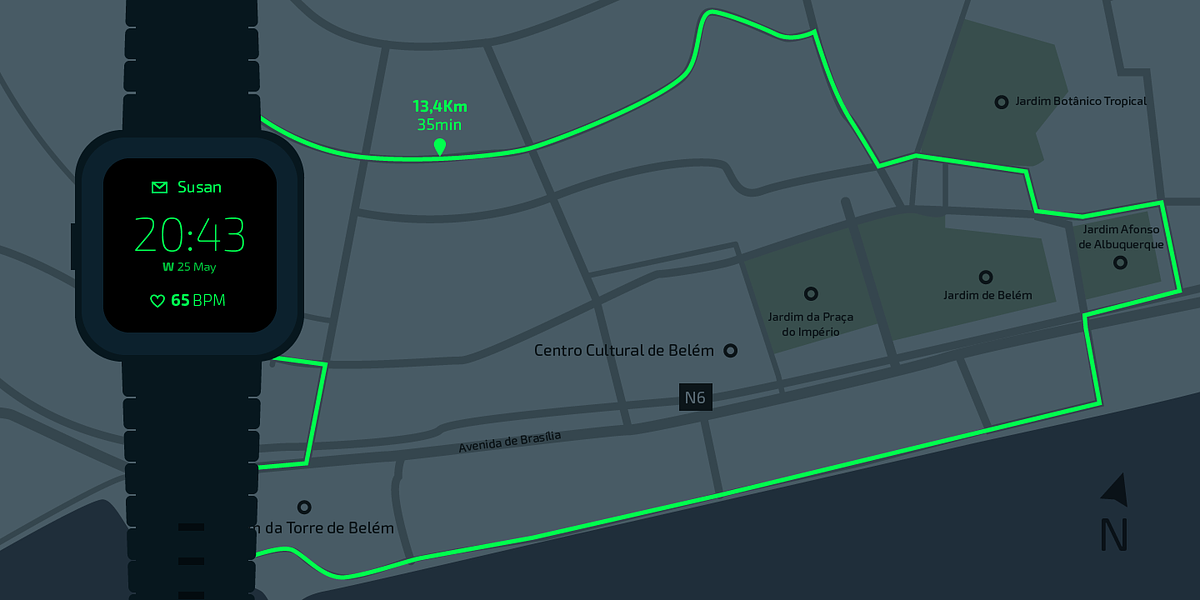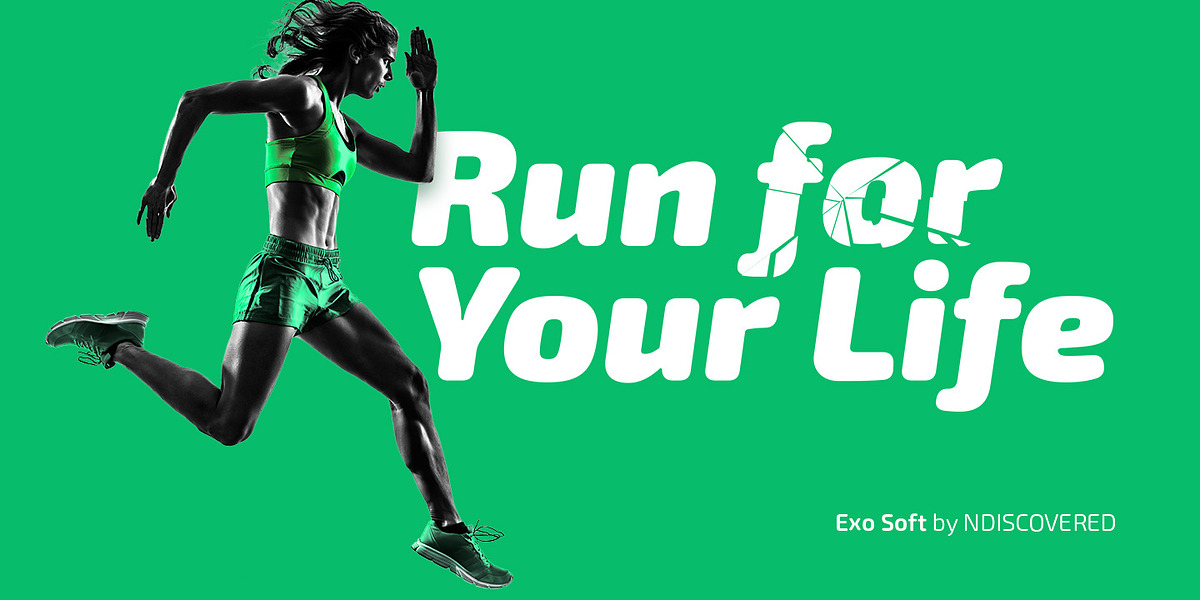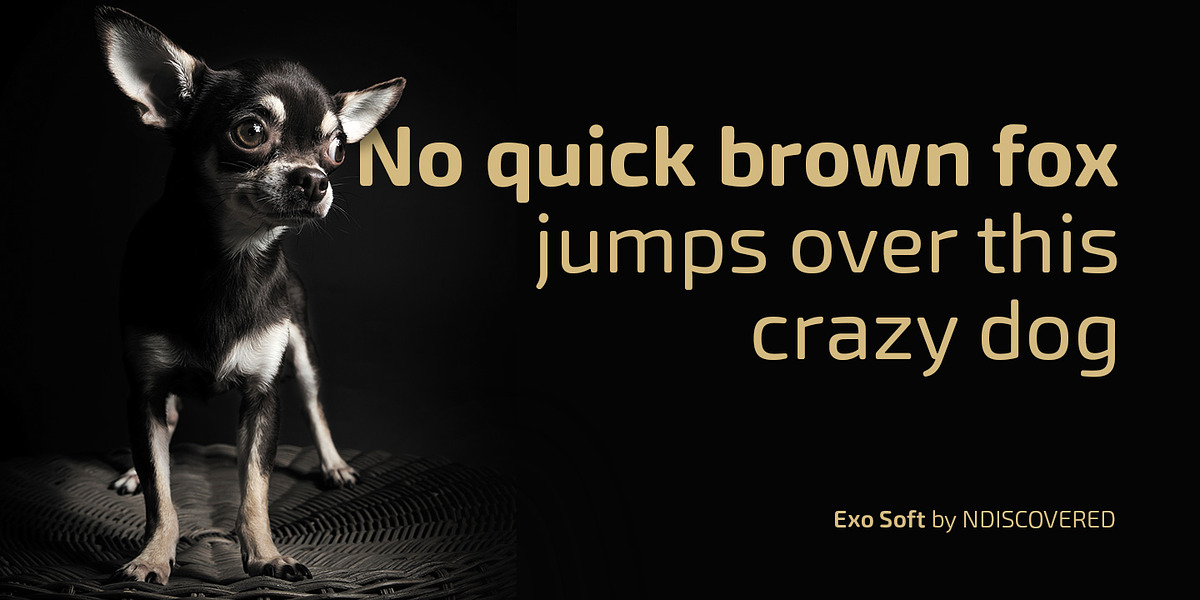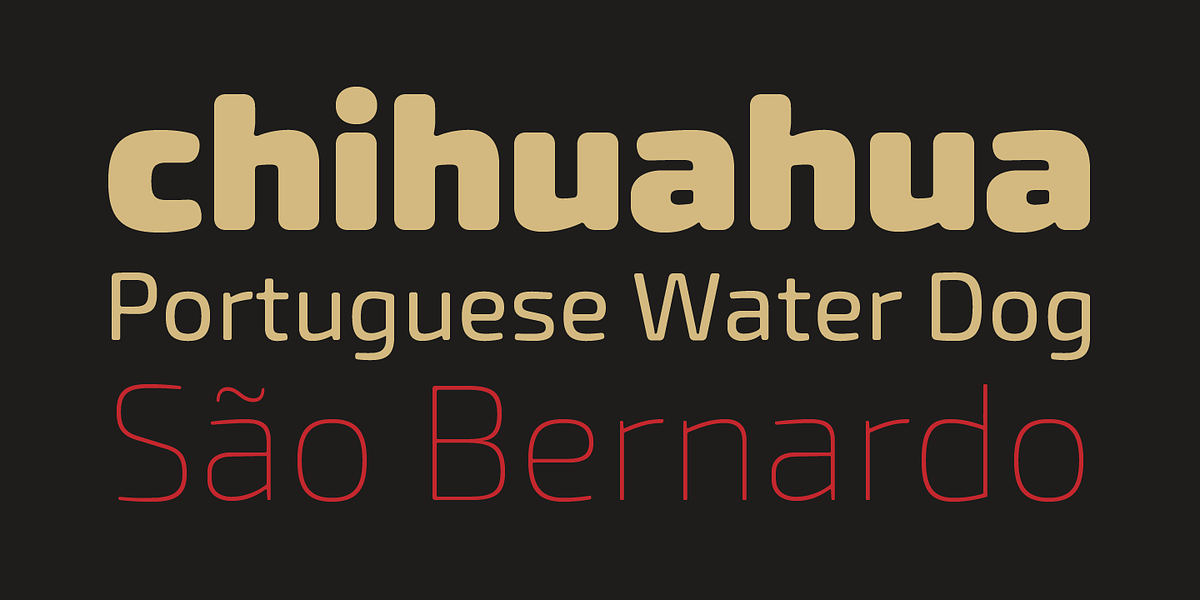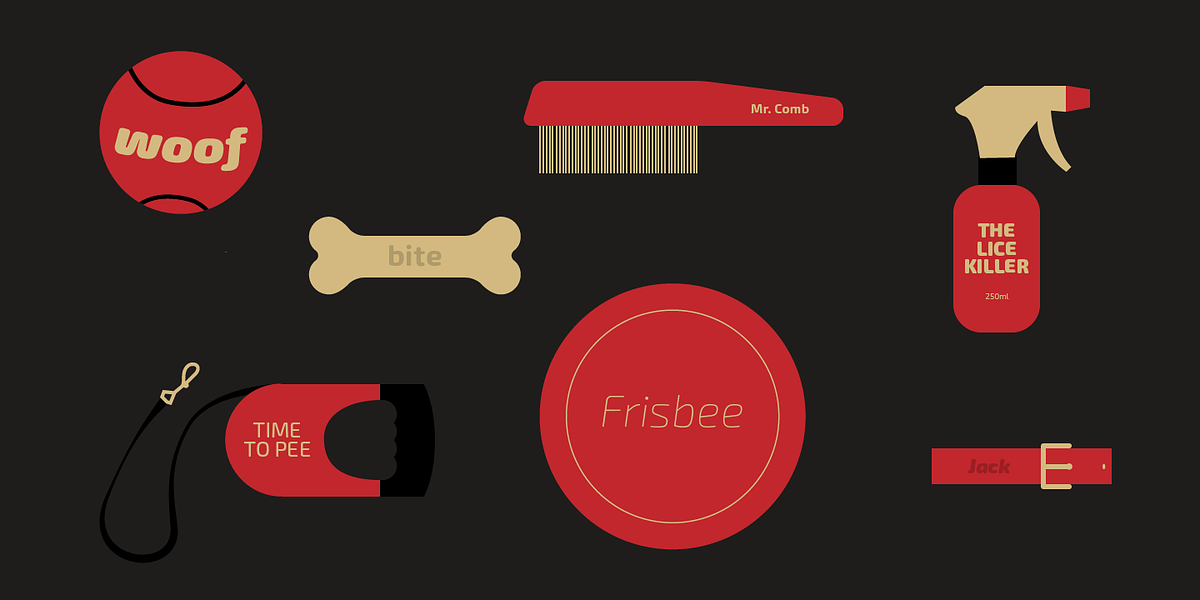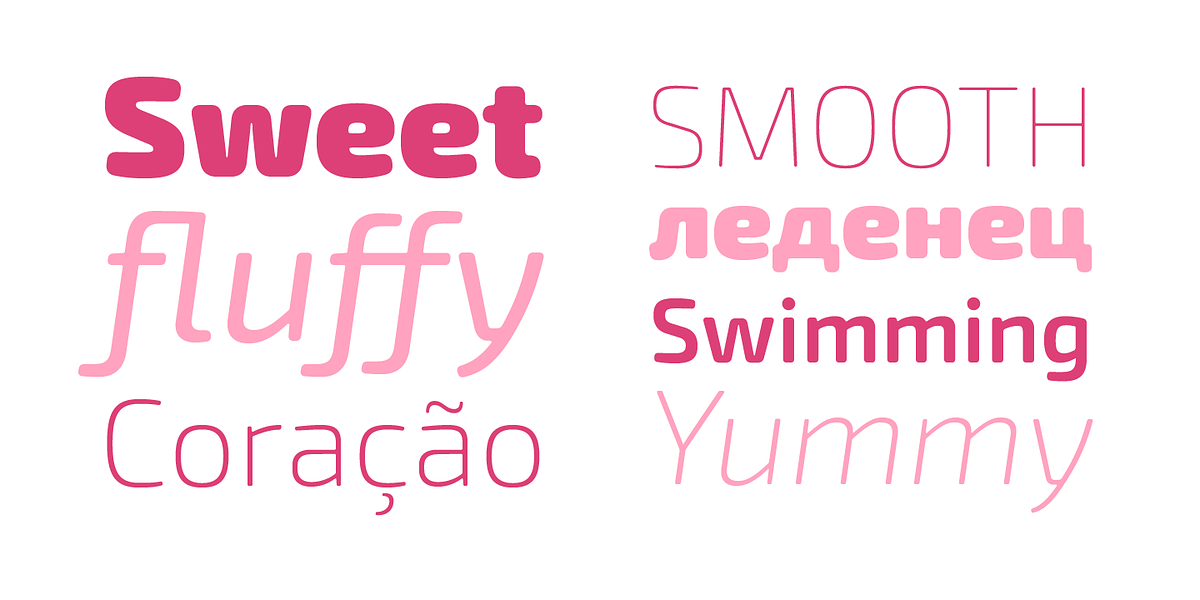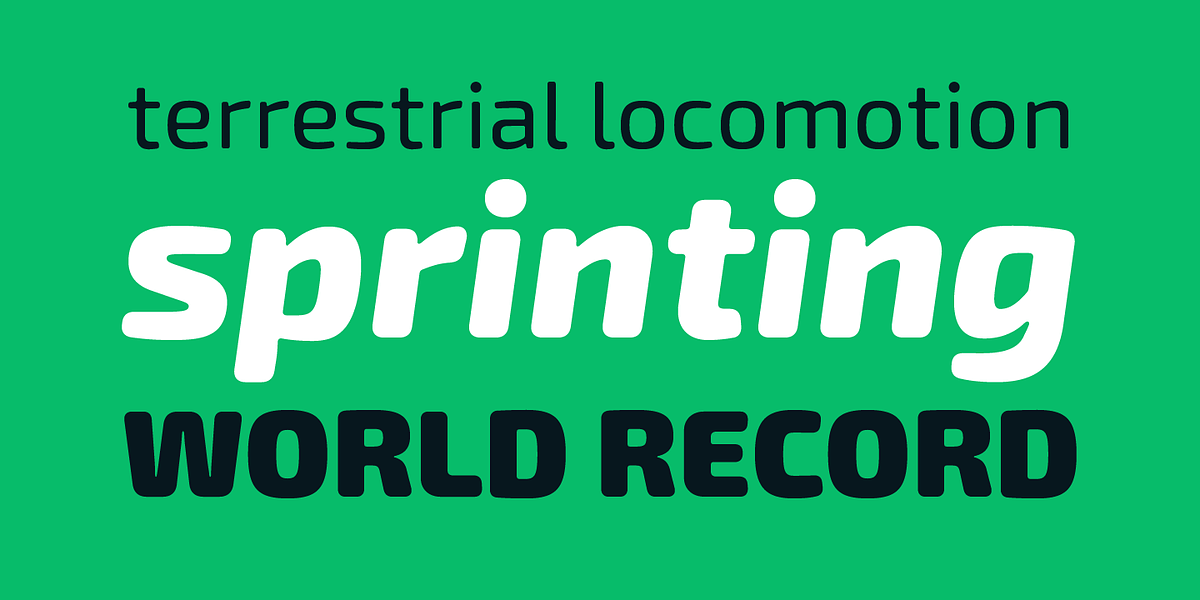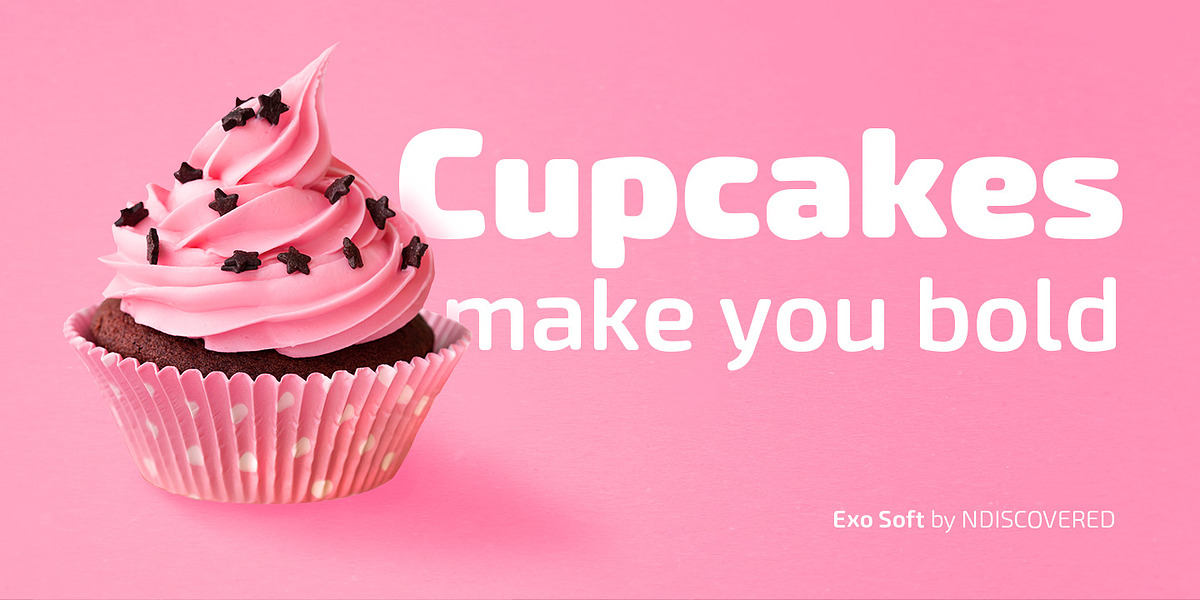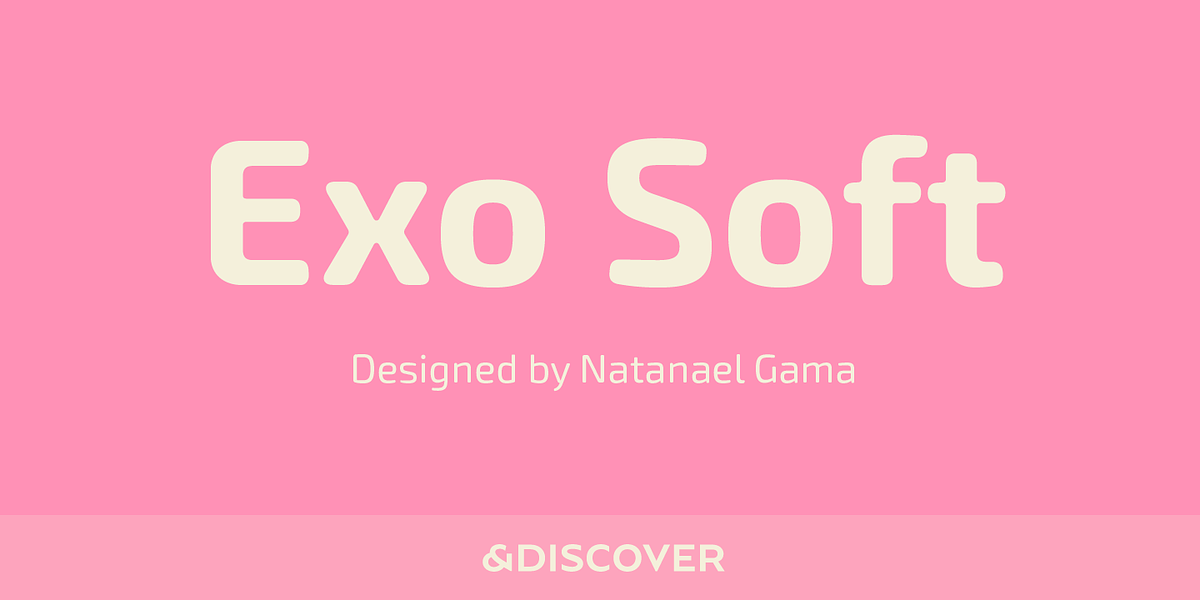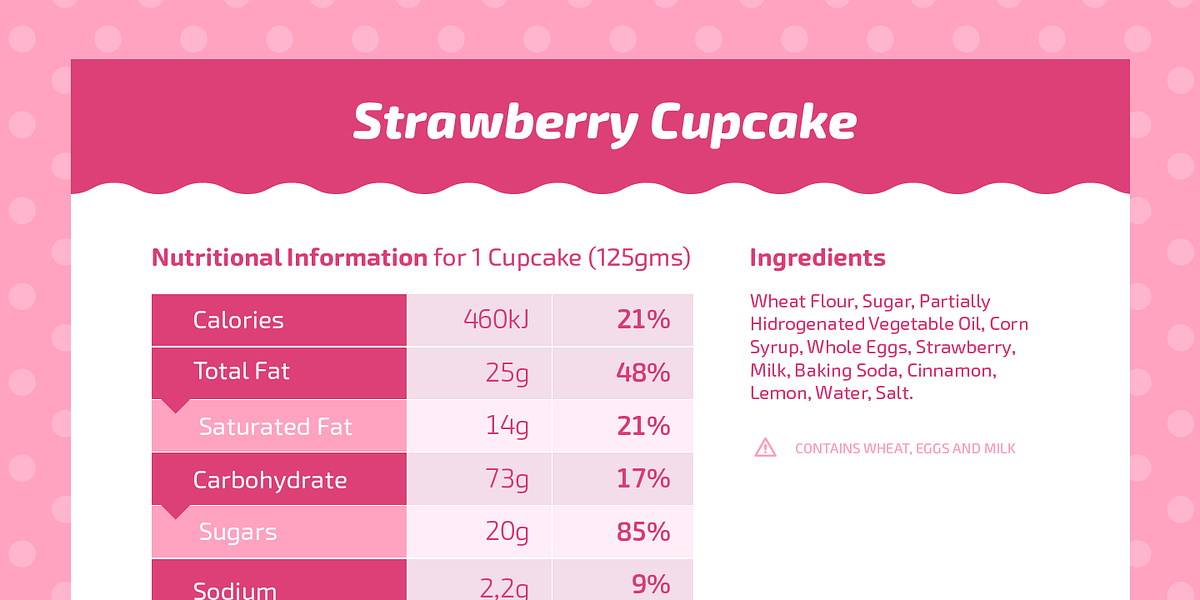
Exo Soft
Exo Soft is a contemporary sans-serif font that blends geometric design with carefully crafted smoothed edges for a warm and humane feeling. It offers extended language support (Latin and Cyrillic) and includes OpenType features. The font family comprises 9 weights plus corresponding italics, providing versatility for various applications. Exo Soft performs well both on screen and in print due to its large x-height and open counters, making it legible even at smaller sizes. Its full potential shines in headlines, branding, and advertising.